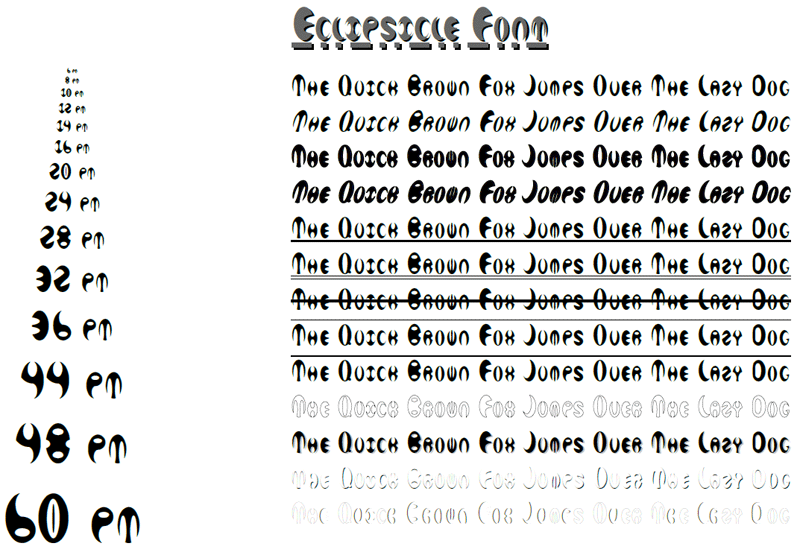
Font name: | Eclipsicle |
Author: | Madame Phoenica |
Note by Madame Phoenica | |
This font was inspired by trying to create each character from a circular or eclipse shape. |